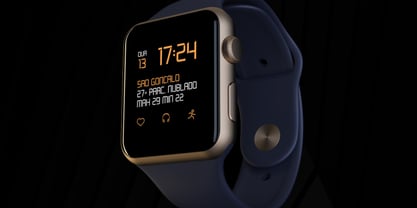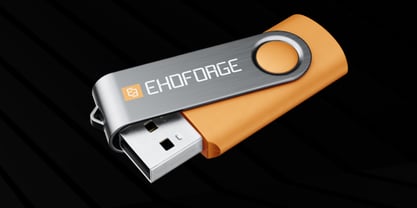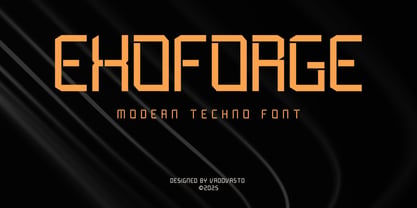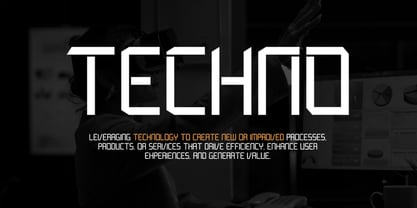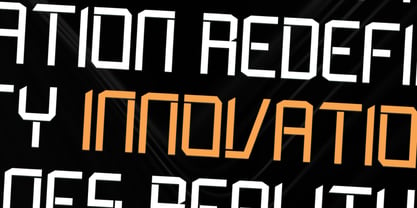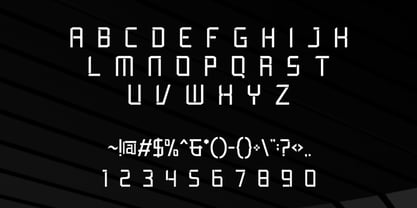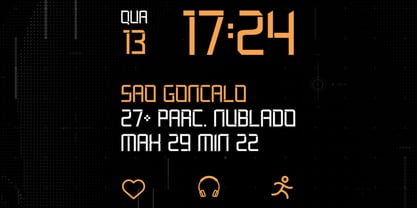
Exoforge
von Vadova Std
Die Schriftfamilie Exoforge entworfen und von Vadova Std veröffentlicht. Exoforge enthält 1 Stile. Mehr über diese Familie
Exoforge is a modern techno display font built with sharp geometric structures and a strong digital presence. Inspired by futuristic interfaces, industrial design, and high-tech aesthetics, its letterforms feel precise, bold, and mechanical. The clean angles and structured shapes create a powerful visual impact while maintaining clarity for display use. Exoforge is designed to deliver a confident, futuristic tone across modern design applications.
Suitable For Technology branding, futuristic logos, UI and interface design, sci-fi posters, game and movie titles, esports branding, automotive visuals, product branding, event graphics, digital presentations, and creative projects that require a strong, modern, and technological display font.